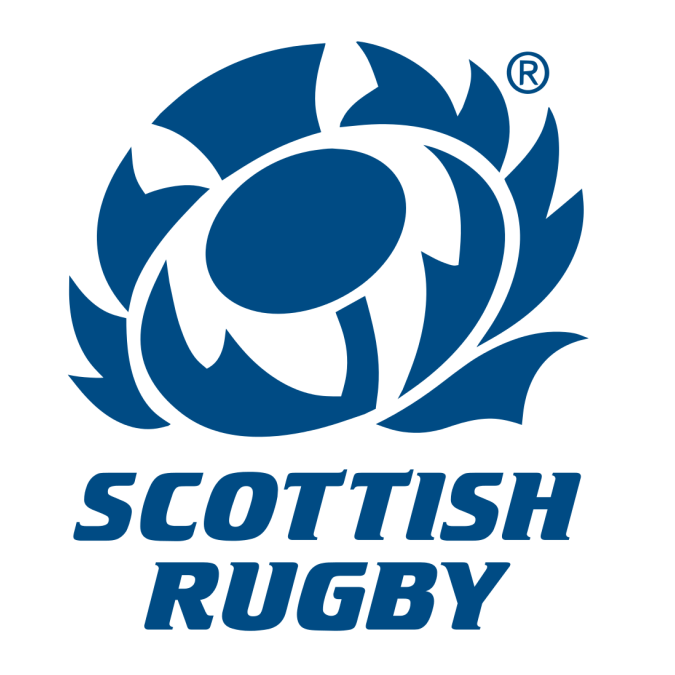
Scottish Rugby Logo Font
Fonts in UseScottish Rugby is the governing body for rugby union in Scotland, overseeing the national team's participation in international competitions and developing the sport at all levels across the country.
The Scottish Rugby logo features the font Crillee Bold Italic by Dick Jones. Its geometric forms exude power and speed, making it ideal for creating a cool and modern appearance with tight spacing in word settings.